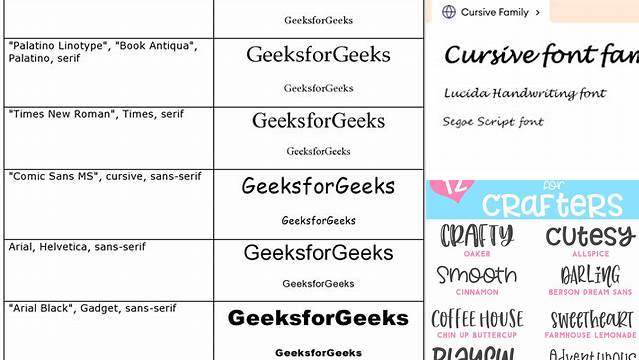
Cute CSS Fonts: Add Charm To Your Website
Hey guys! Want to make your website super adorable? One of the easiest ways is by using cute fonts in your CSS! Choosing the right font can totally transform the vibe of your site, making it more appealing and engaging for your visitors. In this article, we're going to dive deep into some of the cutest fonts you can use and how to implement them in your CSS. Let's get started!
1. Understanding the Appeal of Cute Fonts
Why are cute fonts so effective? Well, they often evoke feelings of playfulness, friendliness, and approachability. Using a cute font can soften the look of your website, making it more inviting. Think about it – a website selling toys for kids will benefit immensely from a font that screams fun, while a serious corporate website might opt for something more professional. Cute fonts generally feature rounded edges, whimsical shapes, and a touch of personality, setting them apart from traditional, more formal fonts. These fonts can create a memorable visual experience that resonates with your target audience. However, it's important to use them judiciously. Overdoing it with too many cutesy elements can make your site look unprofessional or cluttered. Balancing cute fonts with cleaner, more neutral fonts can achieve a harmonious design.
2. Top Cute Fonts for Web Design
Choosing the right font can make all the difference. Here’s a list of some of the most charming fonts you can use to add a touch of cuteness to your web design. When selecting cute fonts, consider factors like readability, versatility, and compatibility with your brand. Some fonts might look great in headings but become tiresome in long paragraphs. Others may not render well on all devices or browsers. Thoroughly testing your font choices is essential. You might also want to experiment with different font weights, sizes, and colors to see what works best for your overall design. Remember, the goal is to enhance user experience, not distract from it. Also, don't forget to check the licensing terms for each font to ensure you're using it legally, especially for commercial projects.
3. Implementing Cute Fonts in CSS: A Practical Guide
4. Pairing Cute Fonts with Other Design Elements
Cute fonts don’t live in isolation! They need to play well with the rest of your design. Think about your color palette, images, and overall layout. A cute font paired with bright, playful colors can create a fun and energetic vibe. On the other hand, pairing it with softer, pastel colors can give a more gentle and calming feel. Also, consider the spacing and alignment of your text. Proper kerning and leading can significantly improve readability, even with a decorative font. Experiment with different combinations to find what works best for your brand's aesthetic. Remember, the goal is to create a cohesive and visually appealing design that enhances the user experience. Pay attention to contrast as well; ensure your font color stands out against the background to avoid straining the reader's eyes.
6. Using Cute Fonts in Logo Design
Your logo is the face of your brand, so choosing the right font is crucial. Cute fonts can be a great option if you want to convey a sense of playfulness or approachability. A well-chosen font can make your logo memorable and help it stand out from the competition. However, it's important to ensure that your font is legible and scalable. Avoid overly decorative fonts that might become difficult to read at smaller sizes. Consider the overall aesthetic of your brand and choose a font that aligns with it. A cute font might be perfect for a children's clothing brand but might not be suitable for a financial institution. Also, think about the font's versatility. Will it work well on your website, business cards, and other marketing materials? A cohesive brand identity relies on consistent use of fonts and visual elements.
7. The Importance of Readability with Cute Fonts
While cute fonts are fun, readability is key! If your visitors can't easily read your text, they're not going to stick around. Opt for fonts that are clear and easy on the eyes, even at smaller sizes. Avoid overly decorative fonts that can strain the reader's eyes. Test your font choices on different devices and browsers to ensure they render well. Pay attention to the spacing between letters and lines. Proper kerning and leading can significantly improve readability. Also, consider the contrast between your text and background colors. Using a dark font on a light background (or vice versa) is generally the easiest on the eyes. Remember, the goal is to make your content accessible and enjoyable for everyone, so prioritize readability above all else.
8. Pairing Cute Fonts with Images
Images and cute fonts can work together to create a visually appealing design. Choose images that complement the style of your font. For example, if you're using a whimsical font, pair it with playful and colorful images. If you're using a more subtle font, opt for cleaner and more minimalist images. Pay attention to the overall balance of your design. Avoid overcrowding your page with too many images or text. Use white space effectively to give your design room to breathe. Also, consider the placement of your images and text. Experiment with different layouts to see what works best. Remember, the goal is to create a harmonious and visually engaging design that captures the attention of your visitors.
9. Cute Fonts for Different Industries
Different industries call for different font styles. A cute font might be perfect for a bakery or a children's bookstore, but it might not be suitable for a law firm or a hospital. Consider your target audience and the overall tone of your brand when choosing a font. If you're in a creative industry, like design or marketing, you might have more leeway to experiment with different font styles. However, if you're in a more conservative industry, like finance or healthcare, it's generally best to stick to more traditional fonts. Research what fonts are commonly used in your industry and use that as a starting point. You can also look at the websites of your competitors to see what fonts they're using. Remember, the goal is to create a professional and credible image that resonates with your target audience.
10. Mobile Responsiveness and Cute Fonts
In today's mobile-first world, it's essential to ensure that your website is mobile-responsive. This means that your website should look and function well on all devices, regardless of screen size. When choosing cute fonts, make sure they're readable on smaller screens. Avoid overly decorative fonts that might become difficult to read on mobile devices. Test your font choices on different devices to ensure they render well. You might need to adjust the font size or line height to optimize readability on mobile. Also, consider using responsive typography techniques, such as fluid fonts or media queries, to adapt your font sizes to different screen sizes. Remember, the goal is to provide a seamless and enjoyable user experience for all visitors, regardless of how they're accessing your website.
11. Using Cute Fonts in Email Marketing
Email marketing is a powerful tool for reaching your target audience. Using cute fonts in your email campaigns can help you stand out from the inbox clutter. However, it's important to ensure that your fonts are supported by most email clients. Some email clients might not support custom fonts, so it's always a good idea to use fallback fonts. Also, consider the overall design of your email. Use a consistent font style throughout your email to create a cohesive and professional look. Avoid using too many different fonts, as this can make your email look cluttered and unprofessional. Remember, the goal is to create an email that is visually appealing and easy to read.
12. The Psychology Behind Cute Fonts
Fonts can evoke different emotions and associations. Cute fonts often evoke feelings of playfulness, friendliness, and approachability. They can make your website or brand feel more inviting and less intimidating. This can be particularly effective if you're targeting a younger audience or if you want to create a more relaxed and informal atmosphere. However, it's important to consider the overall context of your brand and choose a font that aligns with your brand values. A cute font might not be appropriate for a serious or professional brand. Research the psychology of fonts to learn more about how different fonts can affect your audience's perception of your brand.
13. How to Test Cute Fonts for Legibility
Before launching your website, it's important to test your font choices for legibility. Ask friends or colleagues to review your website and provide feedback on the readability of your fonts. Test your fonts on different devices and browsers to ensure they render well. Pay attention to the spacing between letters and lines. Proper kerning and leading can significantly improve readability. Also, consider the contrast between your text and background colors. Using a dark font on a light background (or vice versa) is generally the easiest on the eyes. Use online tools to test the readability of your fonts. These tools can provide insights into the font's x-height, contrast ratio, and other factors that affect legibility. Remember, the goal is to make your content accessible and enjoyable for everyone, so prioritize legibility above all else.
14. Cute Fonts and Brand Identity
Your brand identity is the visual representation of your brand. It includes your logo, colors, typography, and other visual elements. Choosing the right font is crucial for creating a strong and consistent brand identity. Cute fonts can be a great option if you want to convey a sense of playfulness or approachability. However, it's important to ensure that your font aligns with your brand values and resonates with your target audience. Consider the overall aesthetic of your brand and choose a font that complements it. A cute font might be perfect for a children's clothing brand but might not be suitable for a financial institution. Use a consistent font style across all of your marketing materials to create a cohesive and recognizable brand identity.
15. Avoiding Font Overload: Simplicity with Cute Fonts
Using too many different fonts can make your website look cluttered and unprofessional. It's generally best to stick to a maximum of two or three fonts per website. Choose one font for your headings and another font for your body text. You can also use a third font for accents or special elements. Avoid using overly decorative fonts in large blocks of text. These fonts can be difficult to read and can distract from your content. Use cute fonts sparingly and strategically to create a visually appealing and user-friendly design. Remember, simplicity is key. A clean and uncluttered design is often more effective than a complex and overwhelming design.
16. Licensing Considerations for Cute Fonts
Before using a font in your commercial projects, it's important to understand the licensing terms. Some fonts are free for personal use only, while others are free for commercial use. Some fonts might require you to purchase a license before using them in your commercial projects. Always read the font's license agreement carefully to ensure that you're using it legally. If you're unsure about the licensing terms, contact the font designer or foundry for clarification. Using a font without the proper license can result in legal consequences. There are several websites, like Fontspring and MyFonts, that offer a wide variety of fonts with clear licensing terms.
17. The Future of Cute Fonts in Web Design
Web design is constantly evolving, and so are fonts. New cute fonts are being created all the time, and existing fonts are being updated and improved. As technology advances, we can expect to see even more innovative and creative fonts in the future. Variable fonts, for example, allow for greater flexibility and customization, enabling designers to create more dynamic and responsive typography. Artificial intelligence is also playing a role in font design, with AI-powered tools helping designers to create unique and original fonts more quickly and efficiently. Keeping up with the latest trends in font design can help you to create a website that is both visually appealing and cutting-edge.
18. Cute Fonts and Accessibility
Accessibility is an important consideration for any website. When choosing cute fonts, it's important to ensure that they're accessible to people with disabilities. This means choosing fonts that are easy to read for people with visual impairments. Avoid using overly decorative fonts or fonts with low contrast. Use appropriate font sizes and line heights to ensure that your text is legible. Provide alternative text for images that contain text. Use semantic HTML to structure your content in a way that is accessible to screen readers. Test your website with accessibility tools to identify and fix any accessibility issues. Remember, the goal is to create a website that is inclusive and accessible to everyone.
19. Creating Your Own Cute Font
If you're feeling creative, you can even try creating your own cute font! There are several font design software programs available, such as FontLab Studio and Glyphs, that make it easy to create your own unique fonts. Designing your own font can be a time-consuming process, but it can also be a very rewarding experience. It allows you to create a font that is perfectly tailored to your brand and that reflects your unique personality. Before you start designing your own font, it's helpful to study existing fonts and learn about the principles of typography. This will help you to create a font that is both visually appealing and functional.
20. Using Cute Fonts in Print Design
Cute fonts aren't just for web design; they can also be used in print design. When choosing fonts for print, it's important to consider the resolution of the printer and the type of paper you're using. Some fonts might look great on screen but might not print well. Always test your font choices before printing a large batch of materials. Use high-resolution fonts to ensure that your text is sharp and clear. Consider the overall design of your print materials and choose fonts that complement it. A cute font might be perfect for a children's book but might not be suitable for a business card. Remember, the goal is to create print materials that are visually appealing and easy to read.
21. Combining Serif and Sans-Serif Cute Fonts
Serif fonts have small decorative strokes at the end of each letter, while sans-serif fonts do not. Combining serif and sans-serif fonts can create a visually interesting and balanced design. A common approach is to use a sans-serif font for headings and a serif font for body text, or vice versa. This can help to create a clear visual hierarchy and make your content more readable. When combining serif and sans-serif fonts, it's important to choose fonts that complement each other. Avoid using fonts that are too similar or too different. Experiment with different combinations to see what works best for your design. Consider the overall tone of your brand and choose fonts that align with it. Remember, the goal is to create a design that is both visually appealing and functional.
22. Adding Personality with Handwritten Cute Fonts
Handwritten fonts can add a personal and authentic touch to your design. They can make your website or brand feel more approachable and relatable. However, it's important to use handwritten fonts sparingly and strategically. Avoid using handwritten fonts in large blocks of text, as they can be difficult to read. Use them for headings, logos, or other special elements. Choose handwritten fonts that are legible and that reflect your brand's personality. Some handwritten fonts are more playful and whimsical, while others are more elegant and sophisticated. Consider the overall aesthetic of your brand and choose a font that complements it. Remember, the goal is to create a design that is both visually appealing and authentic.
23. Creating Visual Hierarchy with Cute Font Sizes
Using different font sizes can help you to create a visual hierarchy on your website. This can help to guide your visitors' eyes and make your content more organized and easier to read. Use larger font sizes for headings and smaller font sizes for body text. You can also use different font weights to create a visual hierarchy. Bold text can be used to emphasize important information. When choosing font sizes, it's important to consider the overall design of your website and the readability of your content. Test your font choices on different devices and browsers to ensure they render well. Remember, the goal is to create a design that is both visually appealing and functional.
24. Cute Fonts for E-commerce Websites
E-commerce websites need to be both visually appealing and user-friendly. Choosing the right fonts is crucial for creating a positive shopping experience. Use fonts that are easy to read and that convey a sense of trust and professionalism. Avoid using overly decorative fonts or fonts that are difficult to read. Use clear and concise typography to guide your visitors through the checkout process. Consider the overall aesthetic of your brand and choose fonts that complement it. A cute font might be perfect for a children's clothing store but might not be suitable for a luxury jewelry store. Remember, the goal is to create a website that is both visually appealing and easy to use.
25. The Role of Cute Fonts in User Interface (UI) Design
Fonts play a crucial role in user interface (UI) design. They can affect the user's perception of the website or application and can influence their overall experience. Choosing the right fonts is essential for creating a UI that is both visually appealing and functional. Use fonts that are easy to read and that convey a sense of clarity and simplicity. Avoid using overly decorative fonts or fonts that are difficult to read. Use appropriate font sizes and line heights to ensure that your text is legible. Consider the overall design of your UI and choose fonts that complement it. A cute font might be perfect for a children's educational app but might not be suitable for a professional accounting software.
26. Optimizing Cute Fonts for SEO
While fonts primarily affect the visual aspects of your website, they can also indirectly impact your SEO. Using fonts that are easy to read can improve the user experience, which can lead to lower bounce rates and higher engagement. This can signal to search engines that your website is valuable and relevant, which can improve your search rankings. Use descriptive alt text for images that contain text, as this can help search engines to understand the content of your images. Use semantic HTML to structure your content in a way that is accessible to search engines. Optimize your font files for web performance to ensure that your website loads quickly. Remember, the goal is to create a website that is both user-friendly and search engine-friendly.
27. Cute Fonts and Cultural Considerations
Fonts can have different meanings and associations in different cultures. When choosing fonts for a website that targets a global audience, it's important to consider cultural sensitivities. Avoid using fonts that might be offensive or inappropriate in certain cultures. Research the cultural associations of different fonts to ensure that you're making informed decisions. Consider using different fonts for different languages or regions. This can help to create a more culturally relevant and engaging experience for your users. Remember, the goal is to create a website that is respectful and inclusive of all cultures.
28. The Impact of Color on Cute Fonts
The color of your fonts can have a significant impact on their readability and visual appeal. Use colors that contrast well with your background to ensure that your text is easy to read. Avoid using colors that are too similar to your background, as this can make your text difficult to see. Consider the psychological associations of different colors when choosing font colors. Blue, for example, is often associated with trust and professionalism, while red is often associated with excitement and energy. Test your font colors on different devices and browsers to ensure they render well. Use online tools to check the contrast ratio of your font colors to ensure that they meet accessibility standards. Remember, the goal is to create a design that is both visually appealing and accessible.
29. Using Cute Fonts in Presentations
Cute fonts can also be used in presentations to add a touch of personality and visual interest. When choosing fonts for your presentation, it's important to consider the size of the room and the distance between the audience and the screen. Use fonts that are large and easy to read, even from a distance. Avoid using overly decorative fonts or fonts that are difficult to read. Use clear and concise typography to convey your message effectively. Consider the overall tone of your presentation and choose fonts that complement it. A cute font might be perfect for a presentation about children's education but might not be suitable for a presentation about corporate finance. Remember, the goal is to create a presentation that is both visually appealing and informative.
30. Maintaining Consistency with Cute Fonts Across Platforms
Consistency is key when it comes to branding. Using the same fonts across all of your platforms, including your website, social media, and print materials, can help to create a strong and recognizable brand identity. Choose fonts that are versatile and that work well in a variety of contexts. Use consistent font sizes and styles to create a cohesive look and feel. Create a style guide that outlines your brand's typography guidelines. This can help to ensure that everyone on your team is using the same fonts and styles. Regularly review your brand's typography to ensure that it is still relevant and effective. Remember, the goal is to create a brand identity that is consistent, recognizable, and memorable.